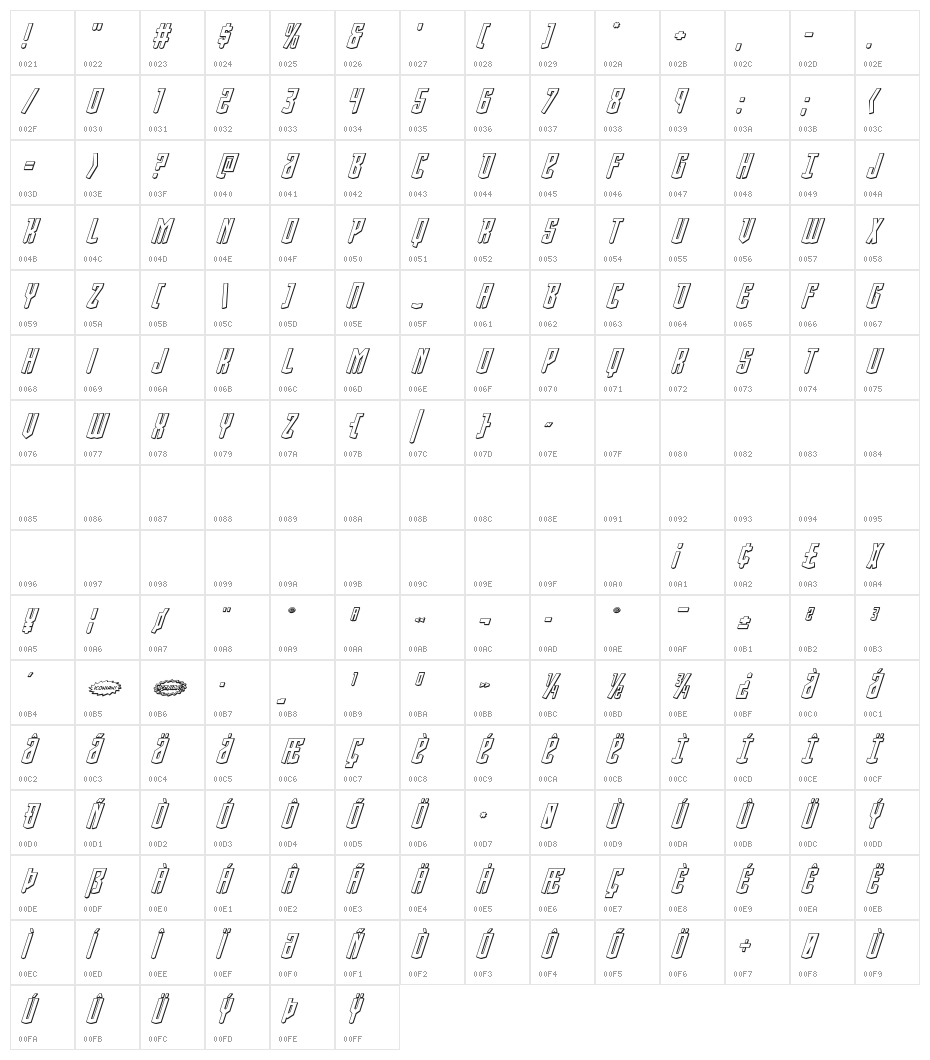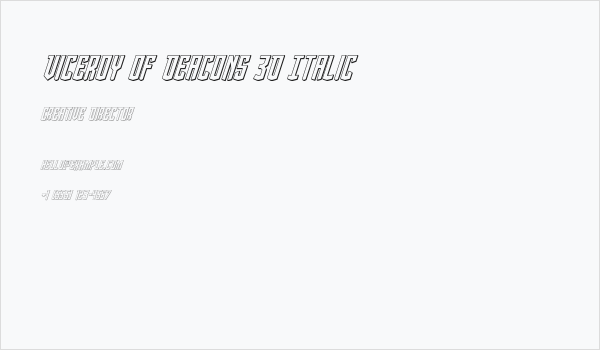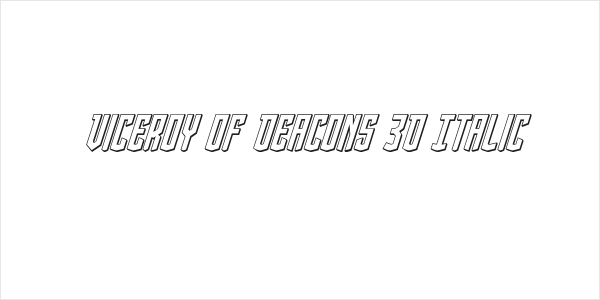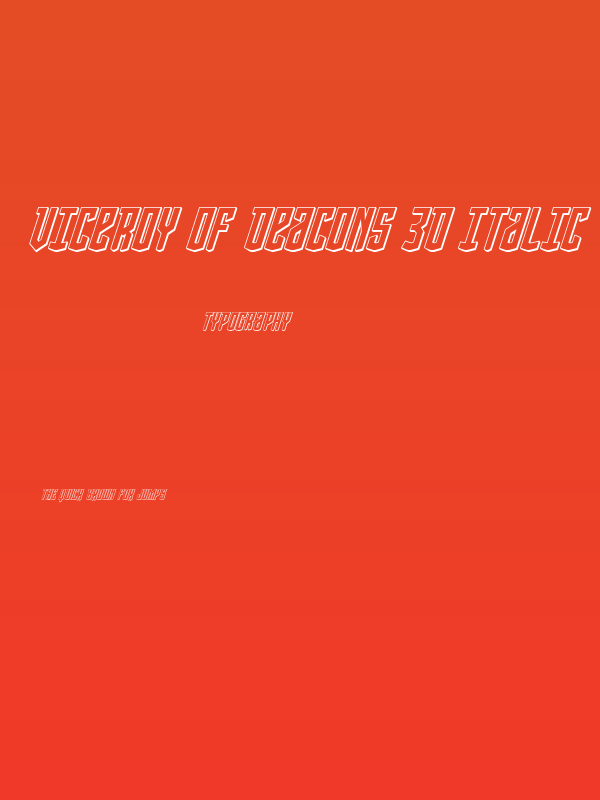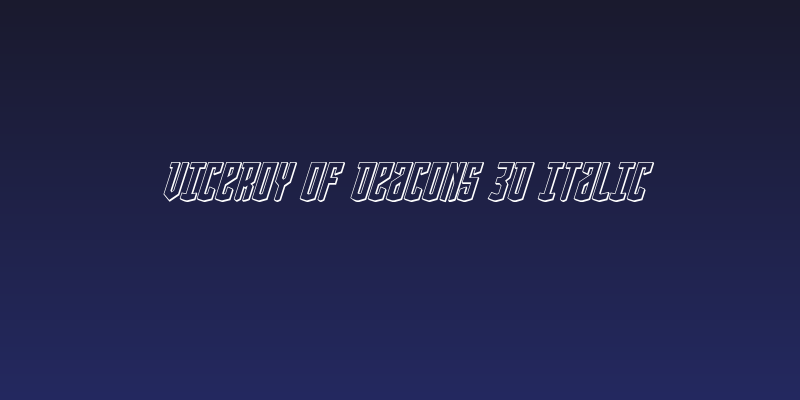
Viceroy of Deacons 3D Italic Font
Viceroy of Deacons 3D Italic Description
This font features a bold, three-dimensional design with an italic slant, giving it a dynamic and modern appearance. The characters are outlined, creating a striking visual effect that enhances readability while maintaining a unique style. The uppercase and lowercase letters are consistent in their angular, geometric shapes, which are complemented by the numerals and special characters. This font's distinct 3D effect is achieved through the use of shadowing, adding depth and a sense of movement to the text. The overall design is both eye-catching and versatile, suitable for a variety of creative applications.
| Proposed Projects | Ideal for logos, posters, video game graphics, and any project requiring a bold, futuristic look. |